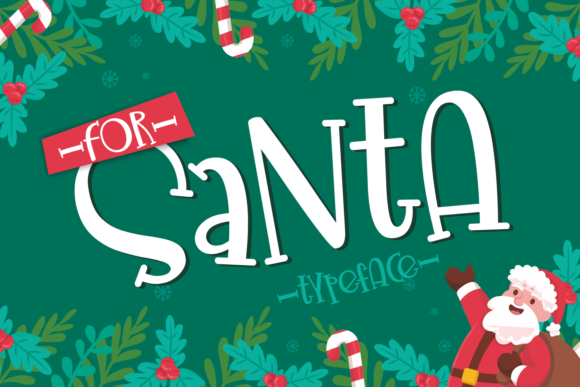
Introducing For Santa Font: The Ultimate Festive Display Font
Are you looking for a font that captures the essence of the holiday season? Do you want to add a touch of whimsy and fun to your designs? Look no further than For Santa Font, a quirky and trendy display font that’s perfect for festive designs and creative projects.
What is For Santa Font?
For Santa Font is a fun and playful display font designed to bring a smile to your face. Its unique and quirky style makes it ideal for use in festive designs, holiday-themed projects, and any other creative endeavor that needs a dash of personality.
This font is perfect for designers, crafters, and DIY enthusiasts who want to add a touch of whimsy to their work. Whether you’re creating holiday cards, decorations, or social media graphics, For Santa Font is sure to make your designs stand out.
Key Features of For Santa Font
- Unique and Quirky Style: For Santa Font has a one-of-a-kind design that’s sure to grab attention.
- Festive and Fun: This font is perfect for holiday-themed designs and projects.
- Trendy and Modern: For Santa Font has a modern and trendy feel that’s perfect for creative projects.
Uses for For Santa Font
For Santa Font is a versatile font that can be used in a variety of creative projects. Here are some ideas to get you started:
- Holiday Cards and Invitations: Use For Santa Font to create festive holiday cards and invitations that are sure to impress.
- Social Media Graphics: Add a touch of whimsy to your social media graphics with For Santa Font.
- Decorations and Signs: Use For Santa Font to create festive decorations and signs for your home or business.
- Digital and Print Designs: For Santa Font can be used in both digital and print designs, making it a versatile font for any project.
Why Choose For Santa Font?
There are many fonts to choose from, but For Santa Font stands out from the rest. Here are just a few reasons why:
- Unique Design: For Santa Font has a unique and quirky design that’s sure to grab attention.
- High-Quality: This font is high-quality and easy to read, making it perfect for use in a variety of projects.
Tips and Tricks for Using For Santa Font
Here are some tips and tricks for using For Santa Font:
- Use it Sparingly: Use For Santa Font sparingly to make it stand out more.
- Pair it with Other Fonts: Pair For Santa Font with other fonts to create a unique and interesting design.
- Experiment with Colors: Experiment with different colors to find the perfect combination for your design.
- Have Fun: Most importantly, have fun and be creative with For Santa Font.
For Santa Font is a fun and quirky display font that’s perfect for festive designs and creative projects. Its unique and trendy style makes it a great addition to any design. With its ease of use and versatility, For Santa Font is a font that’s sure to bring a smile to your face.